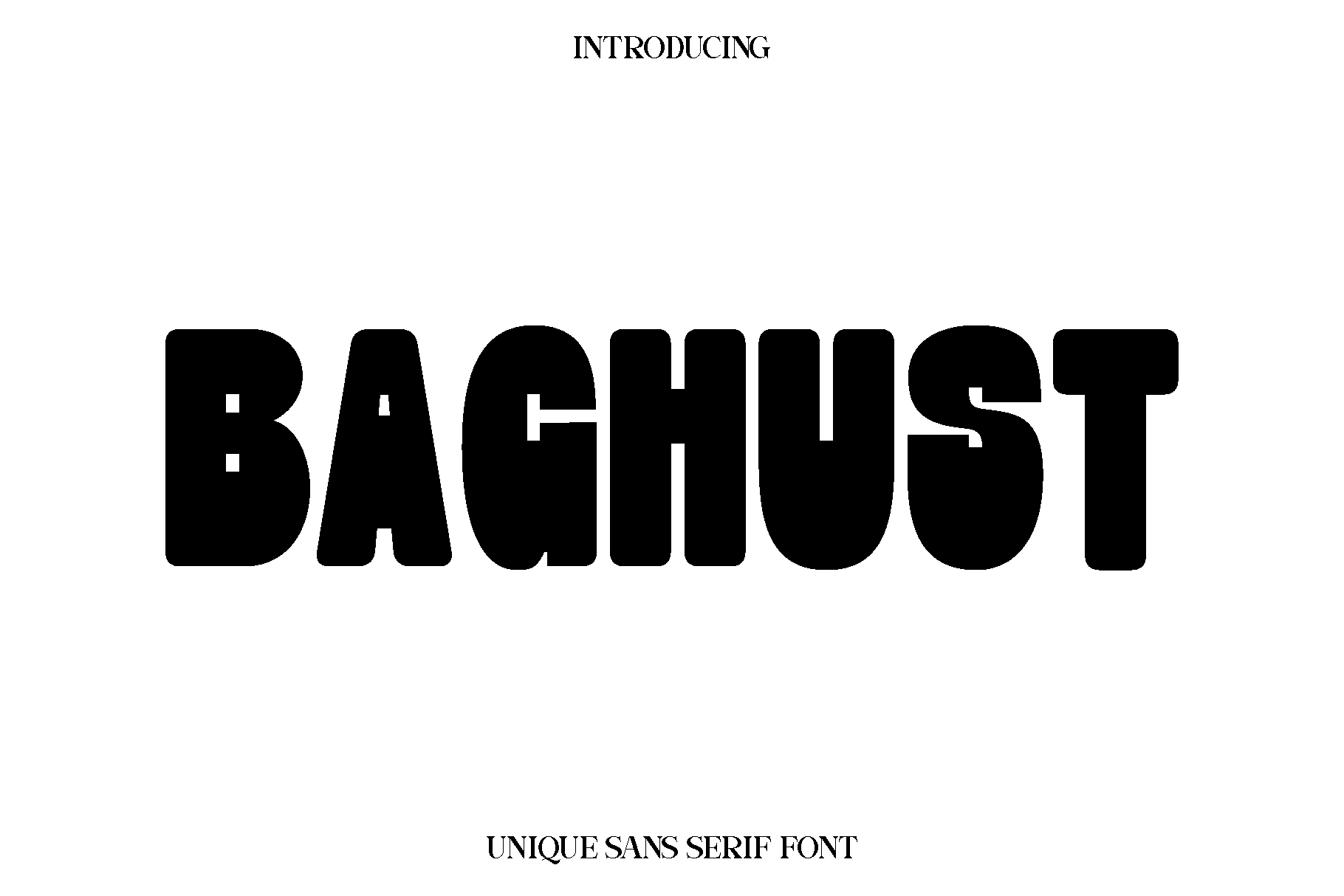
Baghust - Unique Sans Serif Font
Baghust is a thoughtfully designed typeface created to bring clarity, balance, and creative flexibility to a wide range of design projects. Built with a clean structure and a modern sensibility, Baghust offers a smooth reading experience while maintaining a distinctive personality that helps your typography stand out. Its carefully crafted letterforms reflect a harmonious blend of functionality and style, making it a reliable choice for both professional and creative applications.
The font feels approachable, contemporary, and highly adaptable. Baghust shines in editorial layouts such as books and magazines, where readability and visual rhythm are essential. At the same time, its confident appearance makes it equally effective for branding, logos, photography overlays, quotes, blog headers, posters, and advertising campaigns. Whether used for long form text or bold headlines, Baghust delivers consistency and visual appeal across print and digital environments.
Designed with versatility in mind, Baghust supports multilingual projects and ensures your message remains clear across different languages and formats. Its balanced proportions and clean details allow designers to create layouts that feel polished, modern, and professional.
Baghust is perfect for creatives who want a dependable typeface that can adapt to many styles while maintaining a strong visual identity. From editorial storytelling to brand communication, it helps bring ideas to life with confidence and elegance.
• Clean and versatile letterforms